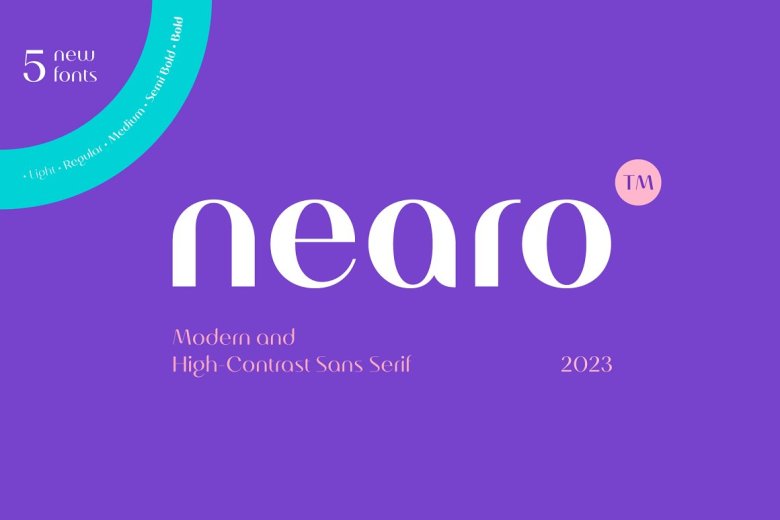
Nearo Font
Nearo offers five font styles distinguished by an ultra-modern, high-contrast aesthetic that stands out from its peers. Nearo excels when used for minimalist or sleek designs, making it an excellent option for books, magazines, logos packaging, fashion invitations, cosmetics labels, novel labels wedding greeting cards as well as other forms of advertising projects.
Nearo Sans Serif Font